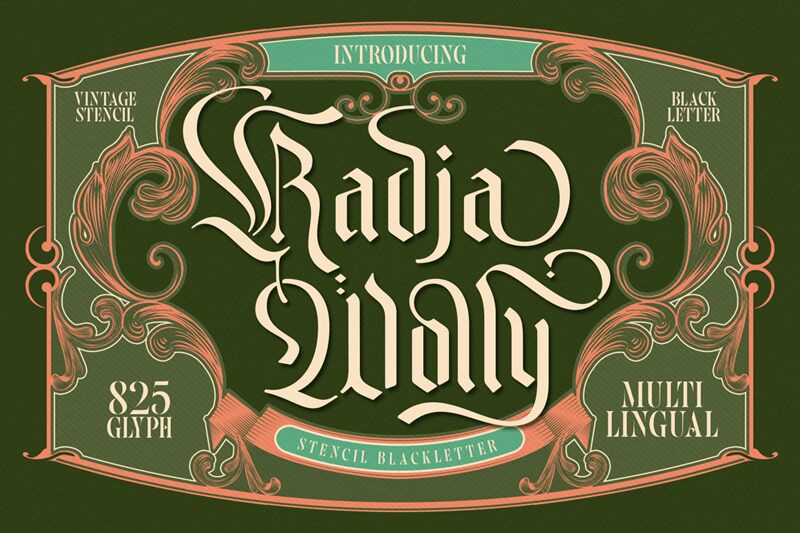
Radja Wolly, designed by Alit Design, is a modern gothic font with a semi-light weight and an extra-condensed width. With its sleek and contemporary style, this font is perfect for creating eye-catching logos and branding materials that demand attention.
Its condensed nature makes it ideal for designs with limited space, such as movie posters or book covers. Additionally, Radja Wolly's unique aesthetic lends itself well to creating impactful headlines and titles on websites or in editorial design.